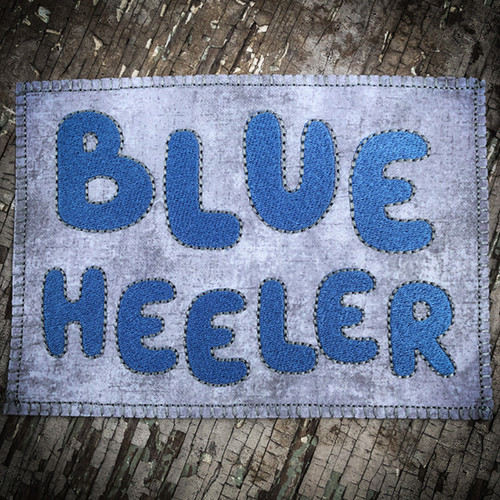
788 Blue Heeler Fill & Floss Font
788 Blue Heeler Fill & Floss Font comes in 1", 1.5", 2", 2.5", 3", 3.5" and 4" heights based on the capital "A". Includes uppercase letters, numbers and 13 punctuation marks (no lowercase). All characters finished in Fill Stitch with Floss Stitch outlines in 2 color set up.